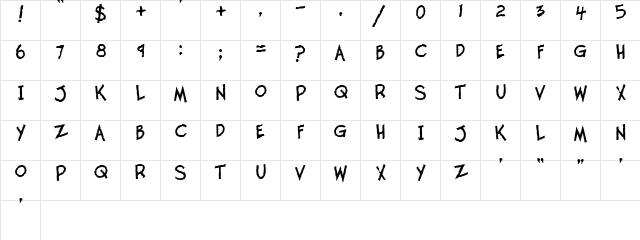
Twelve Ton Fishstick Regular
Design Context for Twelve Ton Fishstick Typeface
Twelve Ton Fishstick is a composed and adaptable typeface that performs quietly and consistently across a wide range of design contexts.